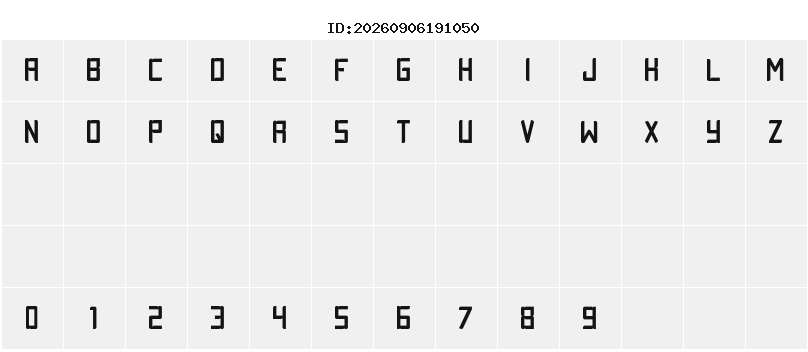
TESTY Preview
About TESTY.otf
TESTY.otf is a modern, elegant sans-serif font designed for ultimate readability and visual harmony. Perfect for branding, headlines, web design, and print materials.